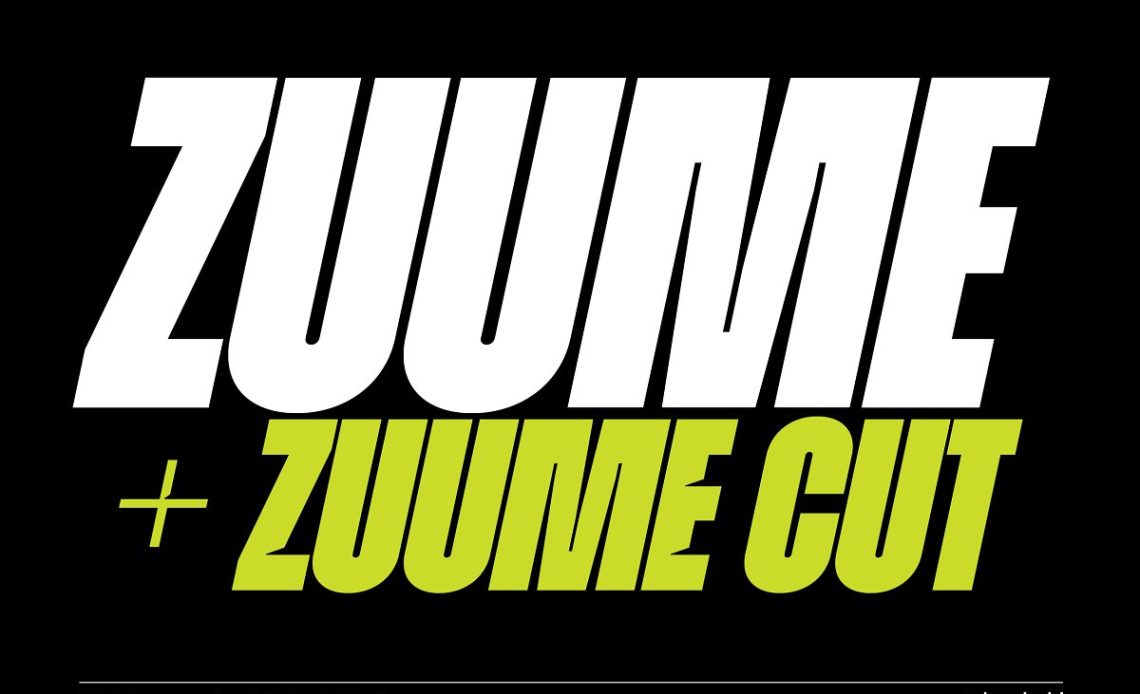
Introducing the Zuume Font Family, the perfect sans-serif font for those looking for a high-impact and condensed display font. Designed by Adam Ladd, Zuume is ideal for eye-catching headlines, branding, packaging, magazines, sports, logos, and more.
One of the key features of this all caps typeface is the notched and extended ink traps meant for both function and aesthetic interest, giving it a unique and modern feel. Its range in thickness also provides a sharp and technical feel in lighter weights, while the bold and blacker weights are perfect for tightly spaced and stacked typography for a visual punch.
The Zuume Font Family comes in multiple weights and italics, including the alternate Cut family which adds sliced out elements to flat horizontal strokes for a dynamic and aggressive design. Stylistic alternates and arrow glyphs increase the design options available, while catchword glyphs add texture to your typography.
This font has extensive multilingual Latin language support, making it a great choice for Western, Central, and South Eastern European languages. With 32 OpenType fonts included in your purchase, you'll have plenty of options to choose from.